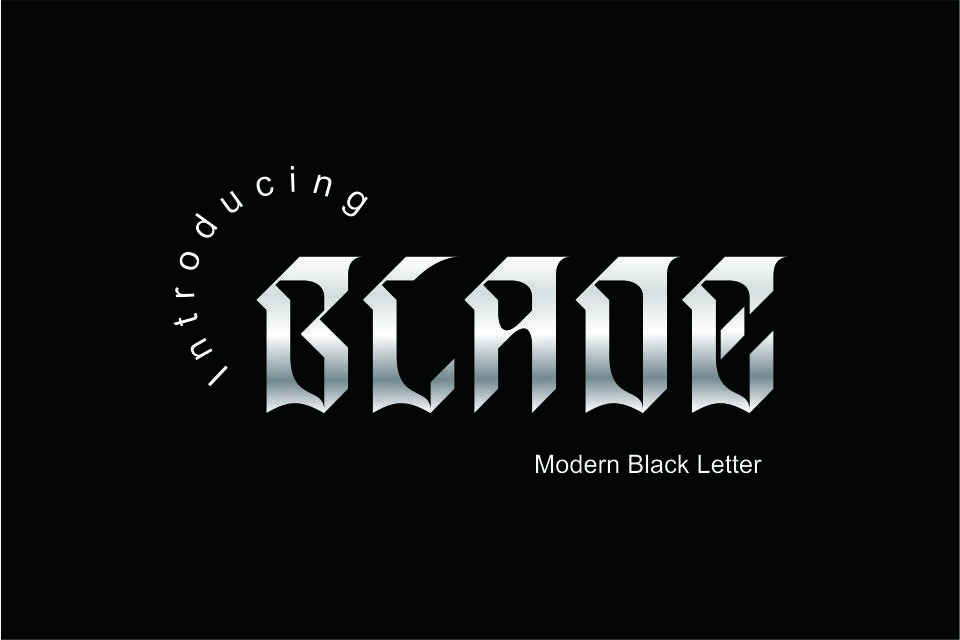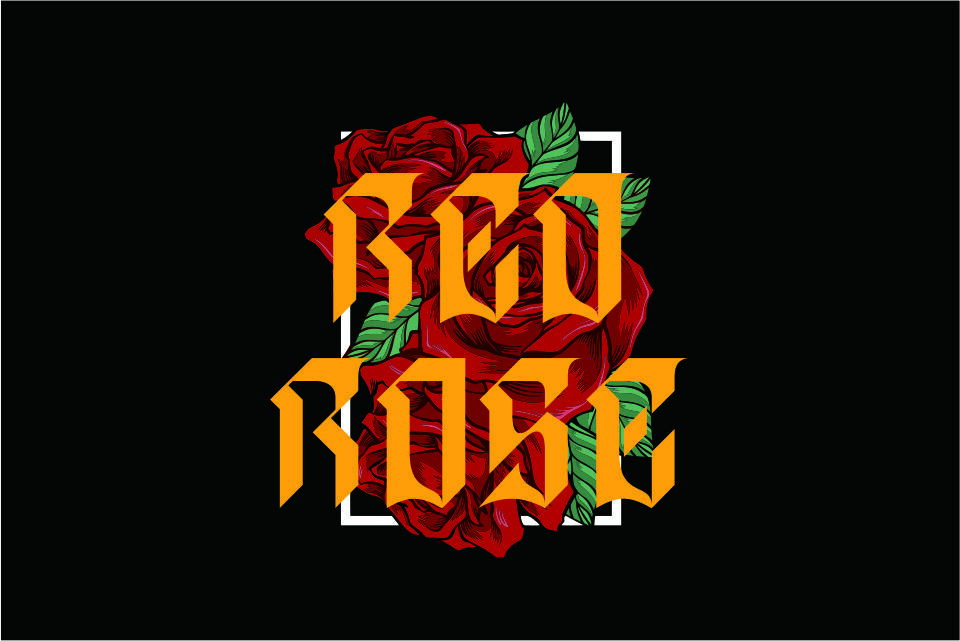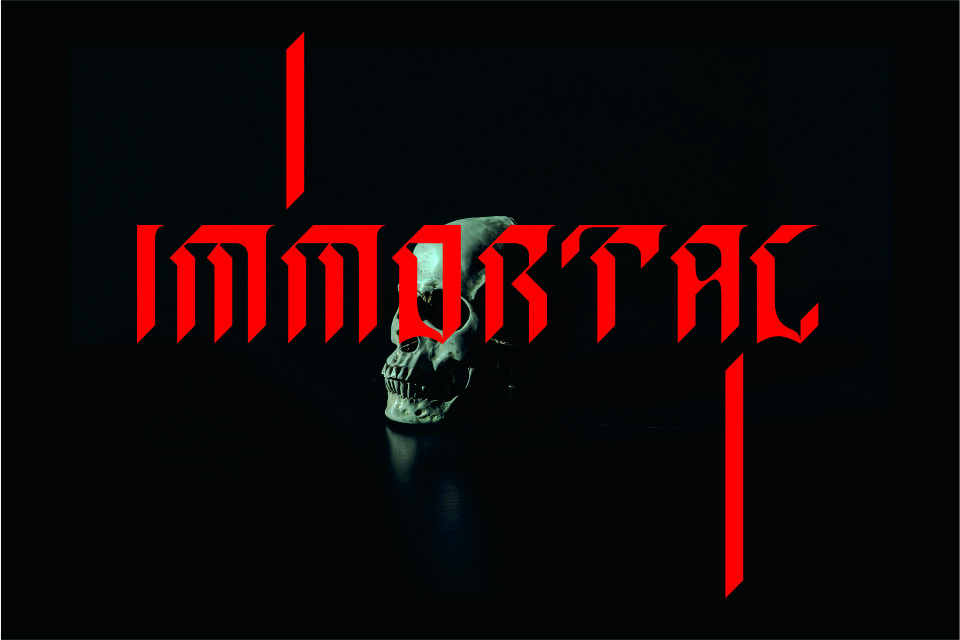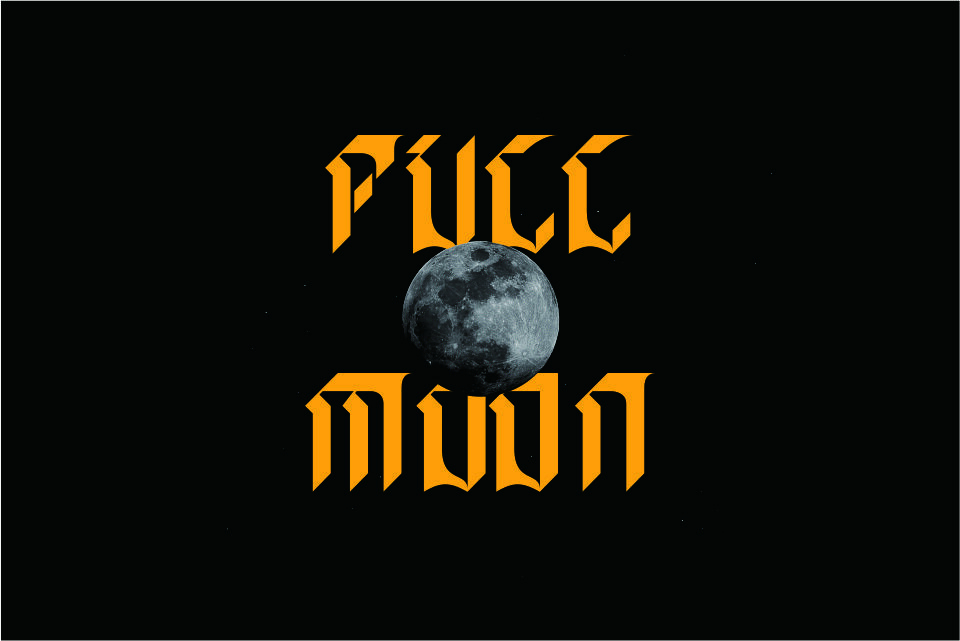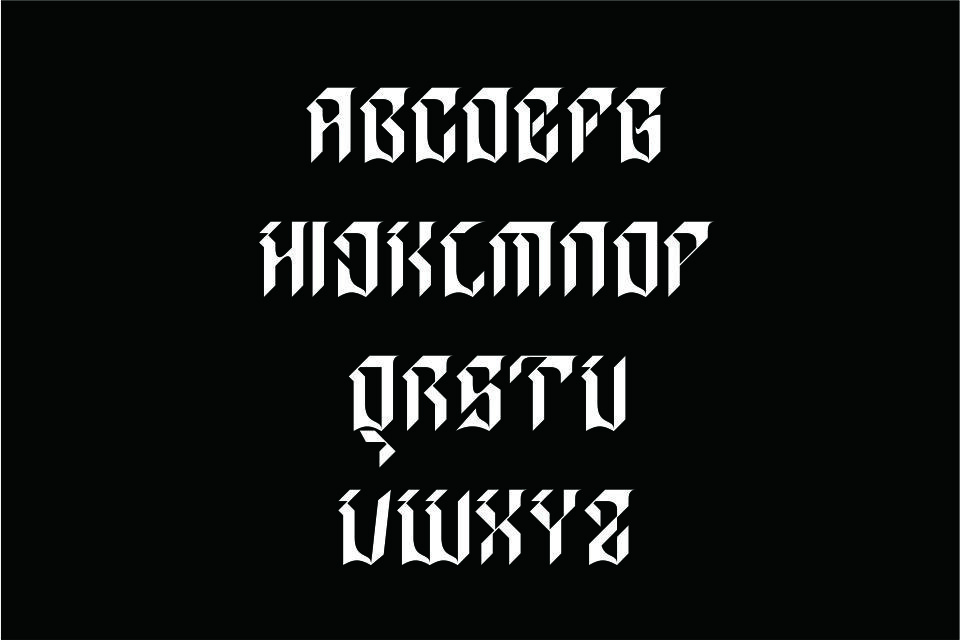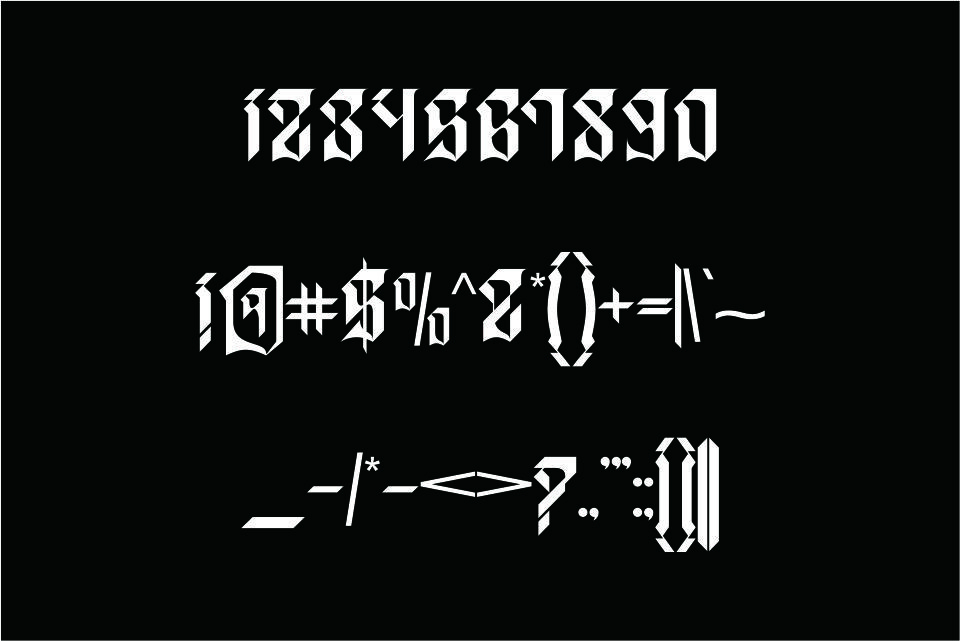
Blade Font
About Blade Font
Blade is a type of blackletter font that carries the concept of modernity. The basic philosophy of this font is more of a product relevance to the times.
This font is great for logos, badges, clothing, posters, single words, short phrases, and more.